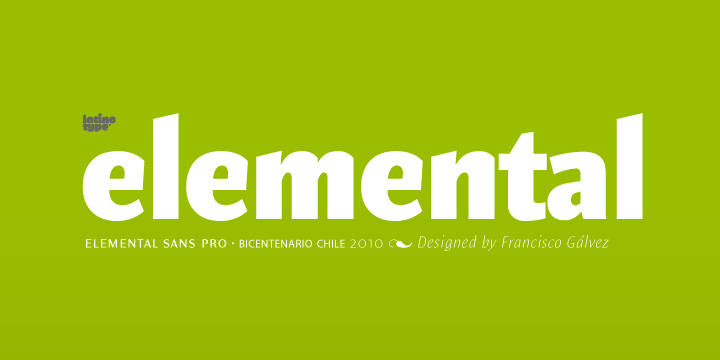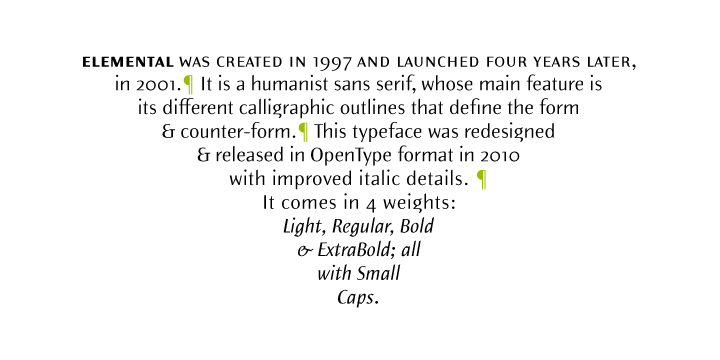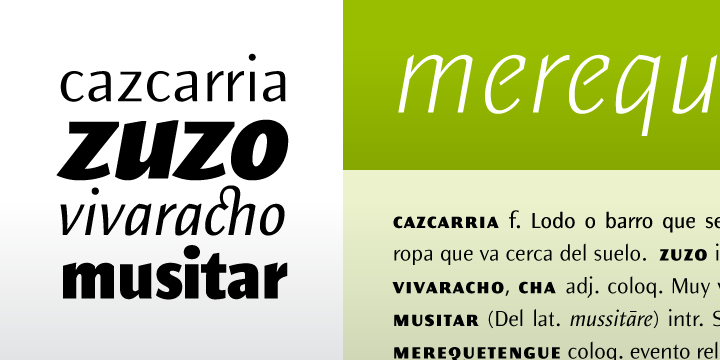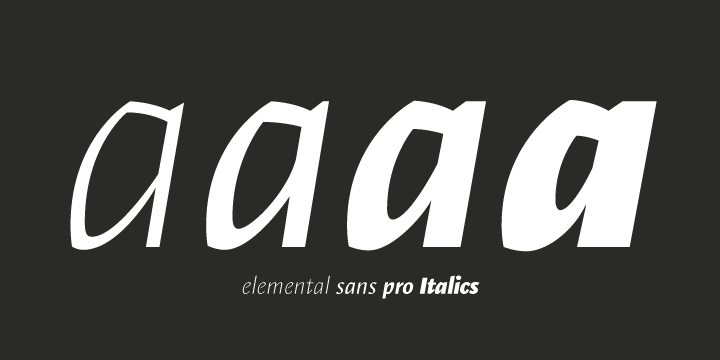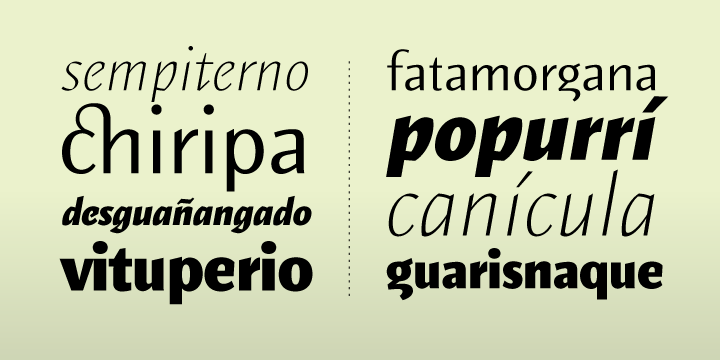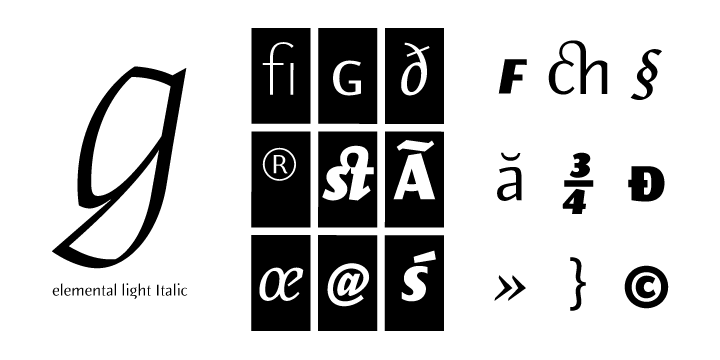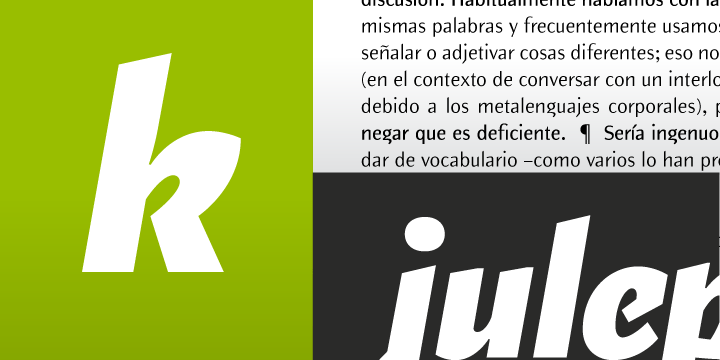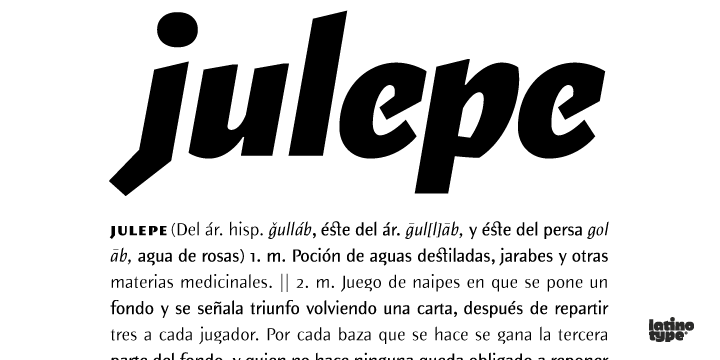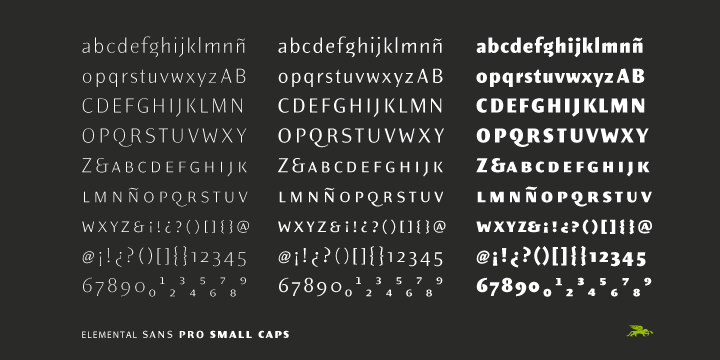
Elemental is a font created in 1997 and launched in 2001. It is a Sans Serif of humanist type and its principal characteristic is a hybrid between different form of calligraphic outlines. In 2010 it was redesigned for Chile’s bicentenary in Opentype version and an improved italic. It is offered in eight weights: Light, Regular, Bold and Extrabold and small capitals for each one of them.